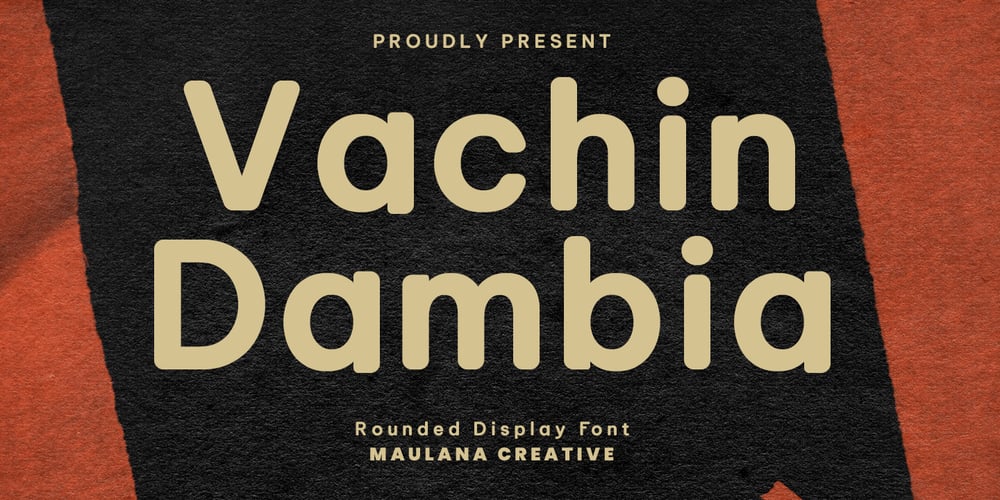
MC Vachin Dambia Font Family was designed by Gilang Maulana and published by Maulana Creative. MC Vachin Dambia contains 1 styles and family package options. Vachin Dambia is a rounded modern sans serif font. With bold tall and smooth stroke, fun character with a bit of ligatures and alternates. To give you an extra creative work. Vachin Dambia font support multilingual more than 100+ language. This font is good for logo design, Social media, Movie Titles, Books Titles, a short text even a long text letter and good for your secondary text font with sans or serif. Make a stunning work with Vachin Dambia font.Cheers,Maulana Creative